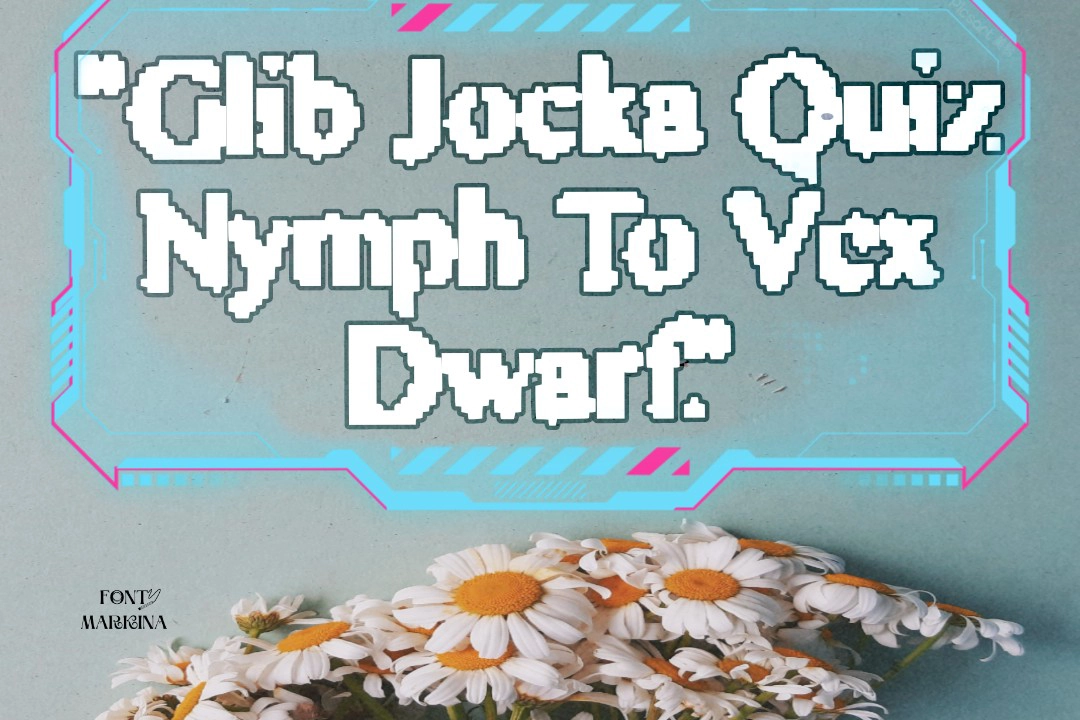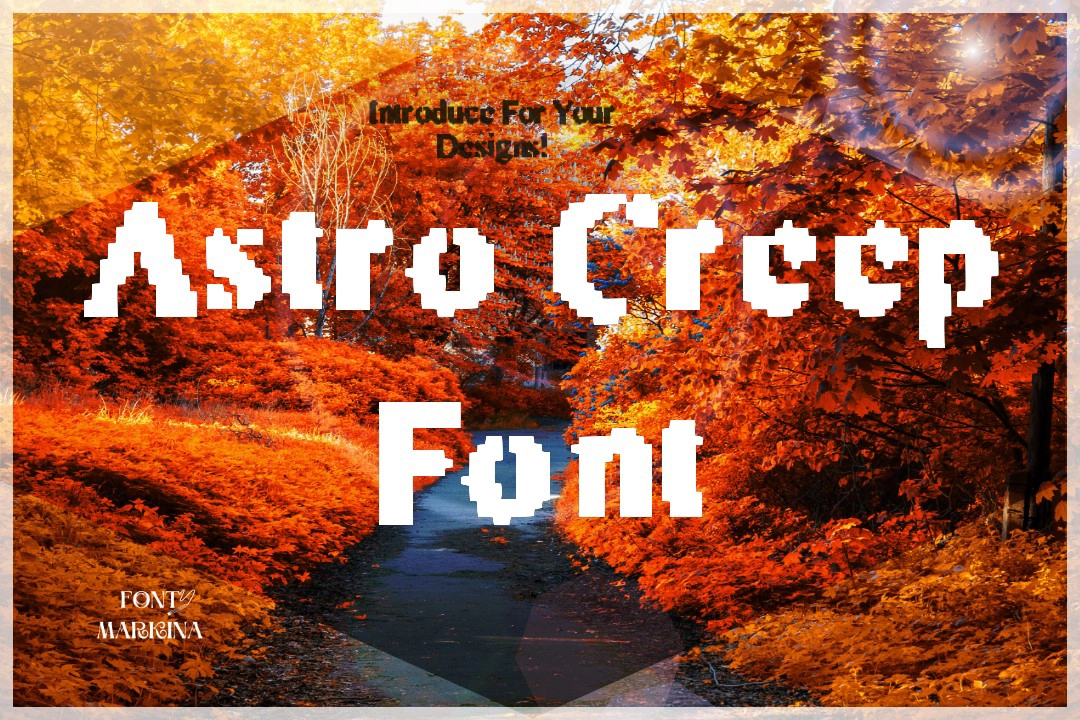
Today, we come with a cool texture that is known under the name Astro Creep Font. This fashionable texture is totally different and strange from others. The original creator of standard design typography is Spork Thug Typography.
Its styles and glyphs increase its worth and uniqueness. This family lies in the classification of the display family of textures. Astro Creep Font is famous for game texture. The bold, and regular styles of this family are very definitive. Its alternative Anurati font and Daisy font add a more modern touch to your designs.
One wonderful feature of this font is the generator tool which is beneficial for graphic designs. Its traditional strokes are very amazing and it supports different languages all across the globe.
Uses of Astro Creep Font
In these days, the use of this texture is common in the industry, Everyone uses this font family for all of their projects and functions. Because this font family will be classic and the best response to all designers for their designs. For social media posts, print design fields, article writing, certificate designs, and everything this family is well suitable.
Not enough, you can use this family by making a combination with Bernier font and get more extraordinary uses. In the company’s products like packaging, clothes printing, toys, and stationery items, the use of this typography is familiar.
Who is the manufacturer of Astro Creep Font?
Spork Thug Typography Foundry is the main and original creator of this font family.
Where we can use Astro Creep Font?
This texture is used for a vast variety of projects and designs according to the user’s needs and demands.